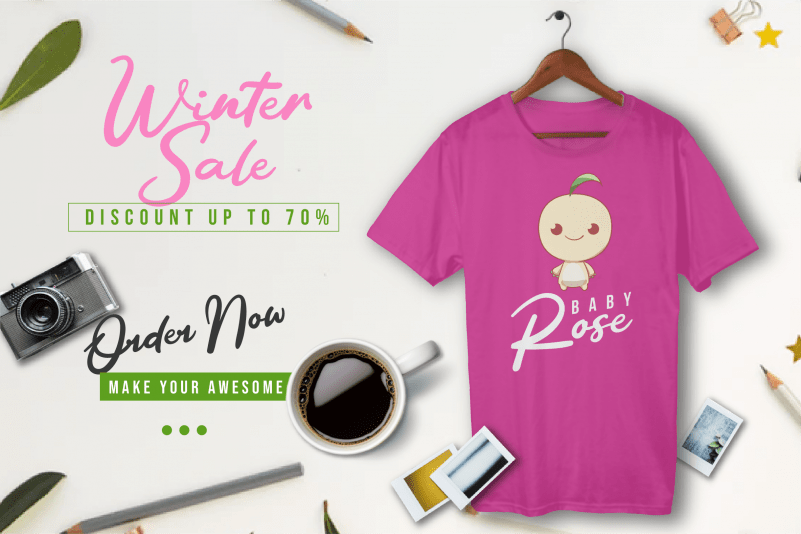
Betty Angel Script Font
Betty Angel Script Font feels equally charming and elegant. It looks stunning on wedding invitations, thank you cards, quotes, greeting cards, logos, business cards and every other design which needs a handwritten touch.